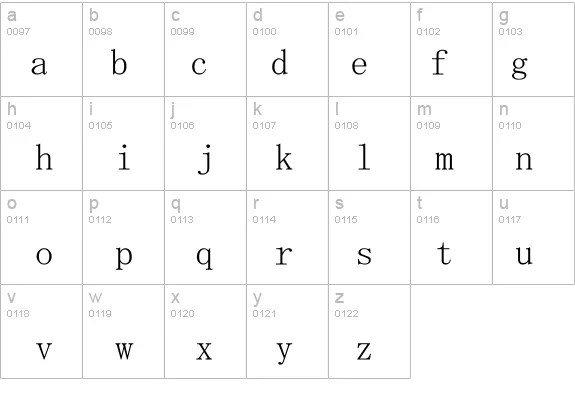
Ms mincho is the perfect font for all your fun designs. Download fonts for microsoft word cloud fonts in office if you have accidentally deleted or replaced windows 7 default fonts or experienced a lot of problems after installing new fonts, the best solution is to restore your windows font. Ms mincho is a japanese font that features serifs at the end of its strokes, and can be used for a variety of uses from screen display to publications.